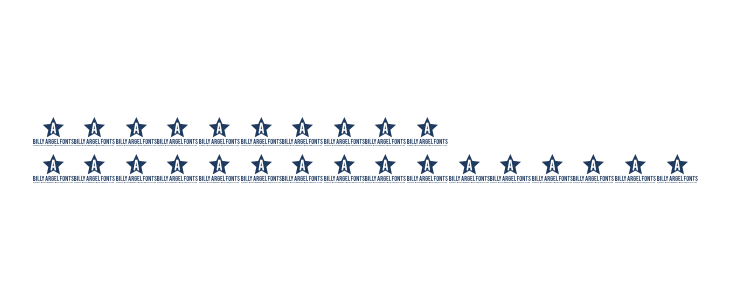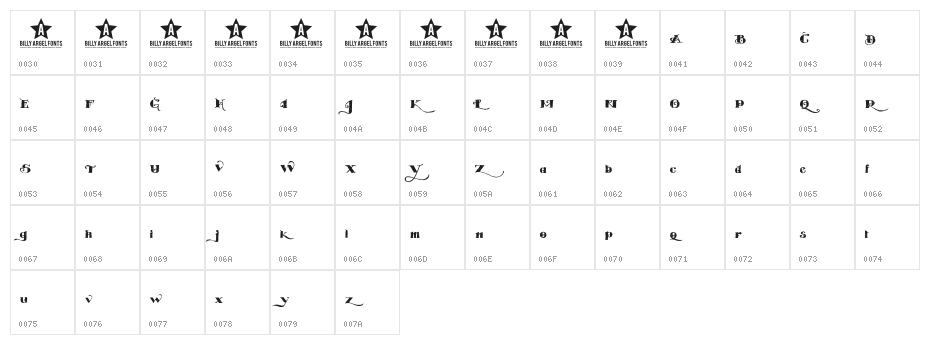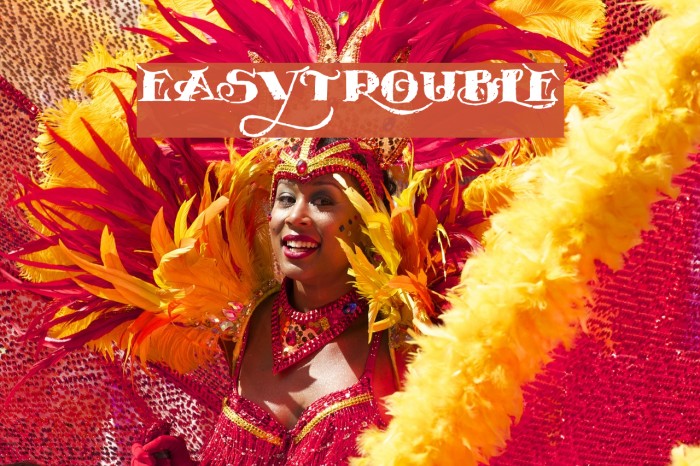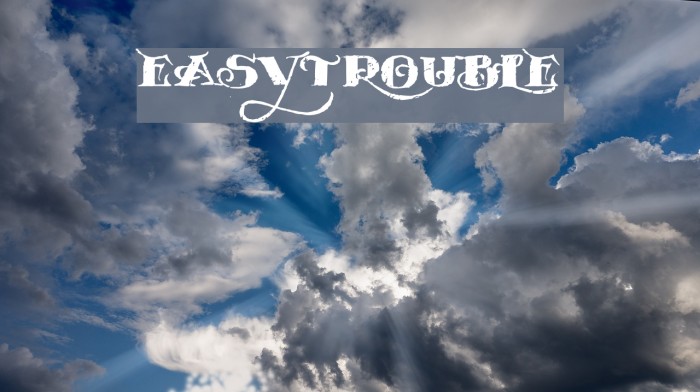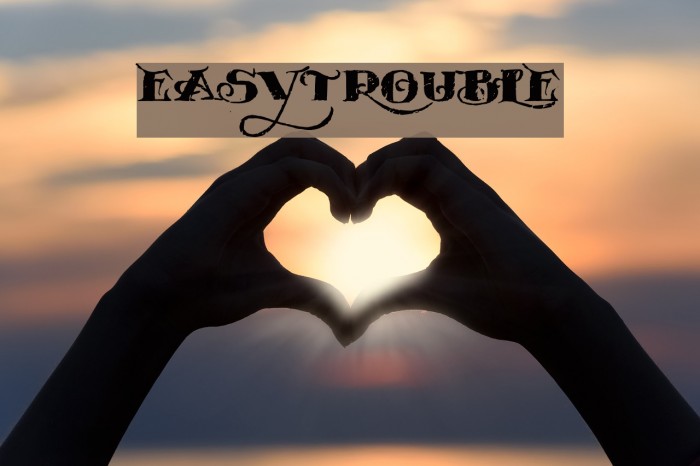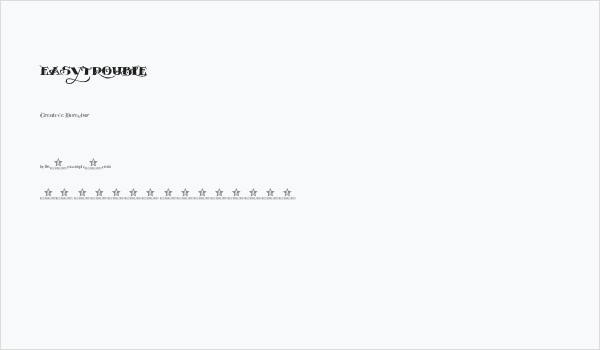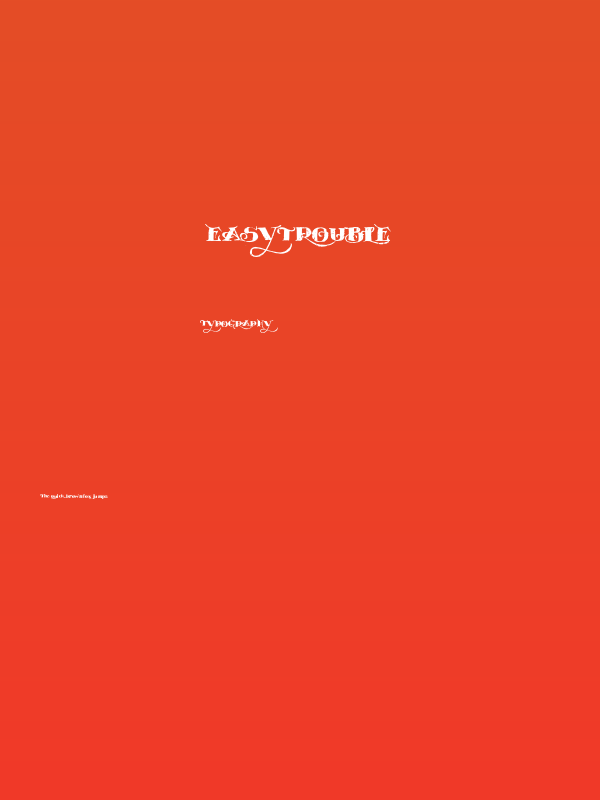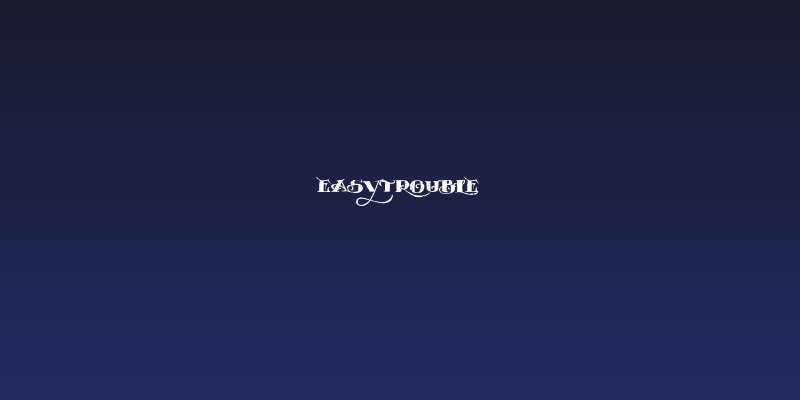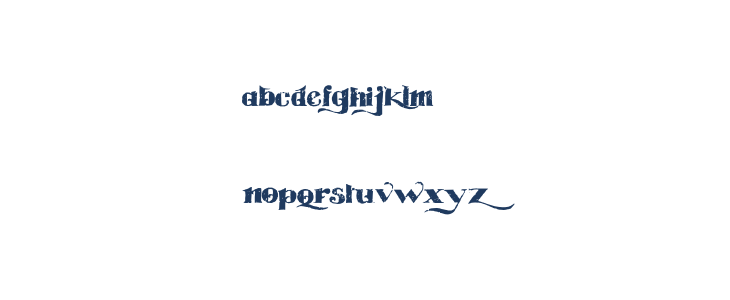
EASYTROUBLE Font
EASYTROUBLE Description
This font is a decorative and elaborate typeface that combines elements of Gothic and calligraphic styles. The uppercase letters are adorned with intricate flourishes and sharp serifs, giving them a dramatic and ornate appearance. The lowercase letters maintain a similar aesthetic, with some characters featuring unique embellishments that enhance their visual appeal. The font's overall design is bold and eye-catching, making it suitable for projects that require a strong visual impact. The special characters are consistent with the font's ornate style, adding to its versatility.
Overall StyleGothic, Decorative
Proposed ProjectsIdeal for tattoo designs, band logos, gothic-themed posters, and vintage-style branding.